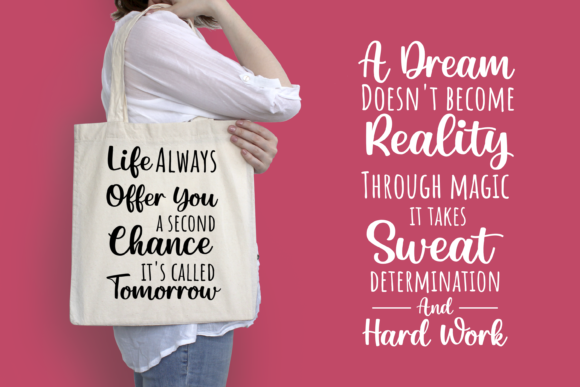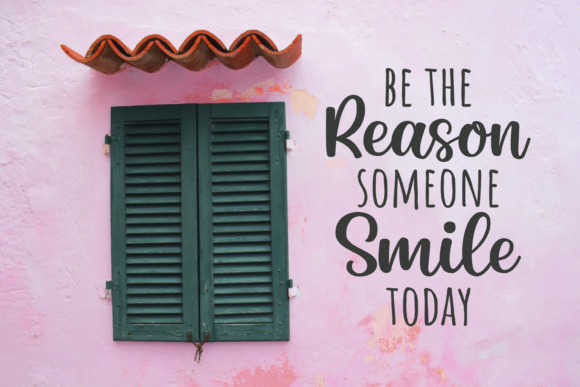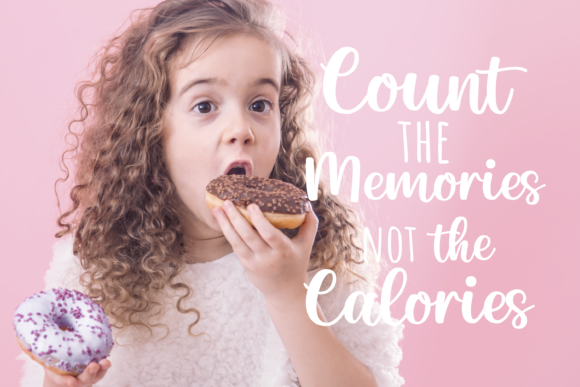
Introduction to Peony Blush Font
Have you ever found yourself in a creative moment where you’re searching for the perfect font to bring your design to life? Maybe you’re planning a wedding invitation, designing a new logo, or working on a romantic greeting card. Whatever your project, you’re likely looking for a font that exudes elegance, charm, and a touch of whimsy. That’s where the Peony Blush Font comes in – a beautiful, cursive handwritten font that will add a joyful and romantic touch to each of your projects.
With its delicate, high-quality design, the Peony Blush Font is a valuable resource for designers and creatives alike. Whether you’re looking to create a beautiful free download or design a stunning visual project, this font is sure to impress. Plus, its transparent background makes it easy to customize and use in a variety of design settings.
Key Features of Peony Blush Font
- High-quality design resource ideal for creative projects, including invitations, cards, and other paper crafts.
- Peony Blush Font features a beautiful, delicate script style with a soft, romantic feel, making it perfect for feminine designs.
- Unique characteristic: The font’s subtle texture and intricate details give it a hand-painted feel, adding a touch of elegance to any design.
Honest Review: Peony Blush Font
I recently stumbled upon the Peony Blush Font, and I must say, it’s a delightful addition to any design project. ✨ The font’s soft, pastel hues evoke a sense of elegance and sophistication, making it perfect for creative projects that require a touch of femininity.
- What works well:
- ✨ Elegant and sophisticated design
- ✨ Soft, pastel hues
However, I do have a few reservations about the font. ⚠️ For one, the transparent background may not be suitable for all design projects, and the font’s high quality may not be as evident on certain devices.
Overall, I’m impressed with the Peony Blush Font’s potential and versatility. With a little creativity, it can be a valuable asset for any design project. I’d recommend giving it a try and seeing how it can enhance your work.
Tips for Getting the Most Out of Peony Blush Font
Use the Peony Blush Font in combination with a transparent background to create a beautiful, delicate design. Experiment with different font sizes and styles to add visual interest to your project.
The Peony Blush Font is perfect for various creative projects, including wedding invitations, baby shower decorations, and floral-themed designs. Its high-quality design and free download make it an excellent resource for designers and non-designers alike.